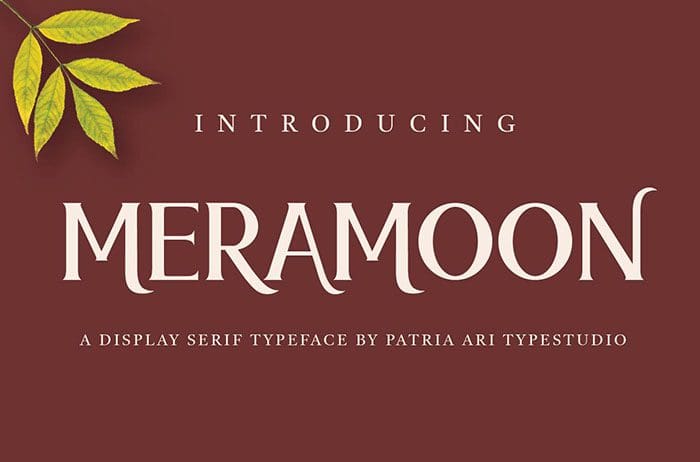
Meramoon Sans Serif Font
Meramoon is a vintage clean Sans Serif Font with aesthetics alternative glyphs. It is perfect for branding projects, logo, product designs, label, photography, invitation, stationery and any projects that you work on. Thanks to Patria Ari Typestudio for sharing this font! Take a look at this portfolio for more of his stunning fonts.